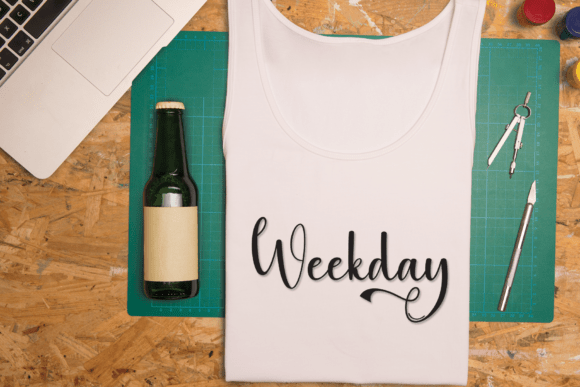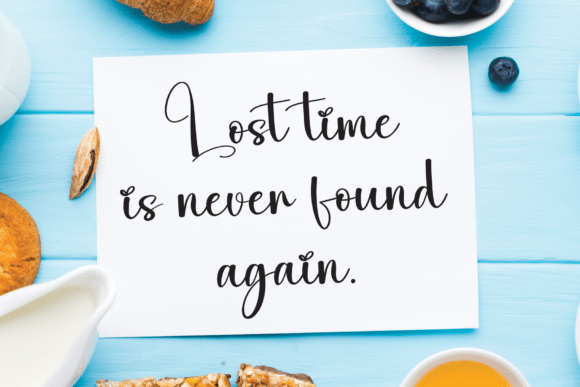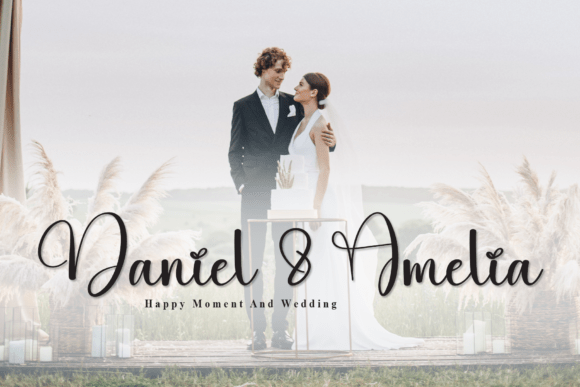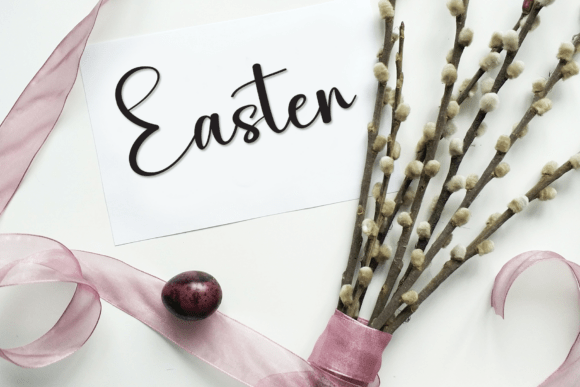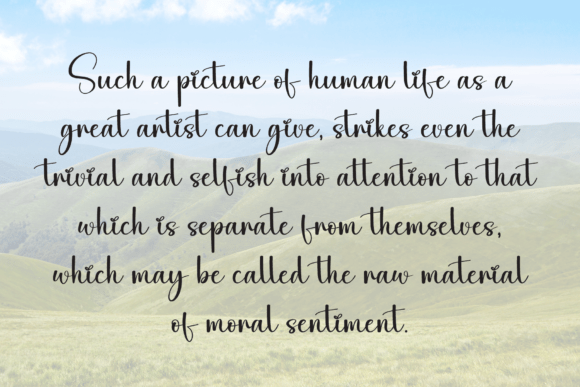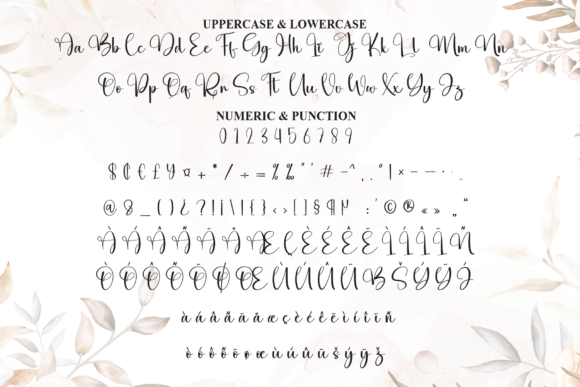
Introducing Beauty Kayla Font: The Sweet and Friendly Display Font
Are you looking for a font that can add a touch of whimsy and playfulness to your design projects? Look no further than the Beauty Kayla Font, also known as the ‘Sweet and Friendly’ display font. This delightful font is infused with a charming allure that excels in adding a light-hearted flourish to any type of design.
In today’s digital age, handwritten fonts have become increasingly popular as they bring a personal touch to any design project. The Beauty Kayla Font is no exception. With its spontaneous elegance and effortless appeal, this font is perfect for designers and crafters who want to add a touch of warmth and personality to their creations.
Perfect for Whimsical Designs
The ‘Sweet and Friendly’ display font is ideal for composing whimsical wedding invites, adorable greeting cards, and other designs that require a dose of fun. Whether you’re a designer or a crafter, this font will help you create unique and eye-catching projects that stand out from the crowd.
Key Features of Beauty Kayla Font
- Playful Spirit: The Beauty Kayla Font has a playful spirit that makes it perfect for designs that require a light-hearted touch.
- Captivating Charm: This font has a captivating charm that excels in adding a touch of elegance to any design.
- Effortless Appeal: With its effortless appeal, this font is perfect for designers and crafters who want to create unique and eye-catching projects.
- Versatile: The Beauty Kayla Font is versatile and can be used for a variety of design projects, from wedding invites to greeting cards.
How to Use Beauty Kayla Font in Your Design Projects
Using the Beauty Kayla Font in your design projects is easy. Here are a few tips to get you started:
- Pair it with Other Fonts: Pair the Beauty Kayla Font with other fonts to create a unique and eye-catching design.
- Use it for Headings: Use the Beauty Kayla Font for headings and titles to add a touch of whimsy and playfulness to your design.
Benefits of Using Beauty Kayla Font
There are several benefits to using the Beauty Kayla Font in your design projects. Here are a few:
- Unique and Eye-Catching: The Beauty Kayla Font is unique and eye-catching, making it perfect for designers and crafters who want to stand out from the crowd.
- Time-Saving: With the Beauty Kayla Font, you can create unique and eye-catching designs in no time.
- Easy to Use: This font is easy to use and can be paired with other fonts to create a unique design.
In conclusion, the Beauty Kayla Font is a delightful ‘Sweet and Friendly’ display font that is perfect for designers and crafters who want to add a touch of whimsy and playfulness to their design projects. With its playful spirit, captivating charm, and effortless appeal, this font is sure to become a favorite in your design arsenal. So why wait? Dive into the delightful world of ‘Sweet and Friendly’ and watch every character narrate a story of its own!